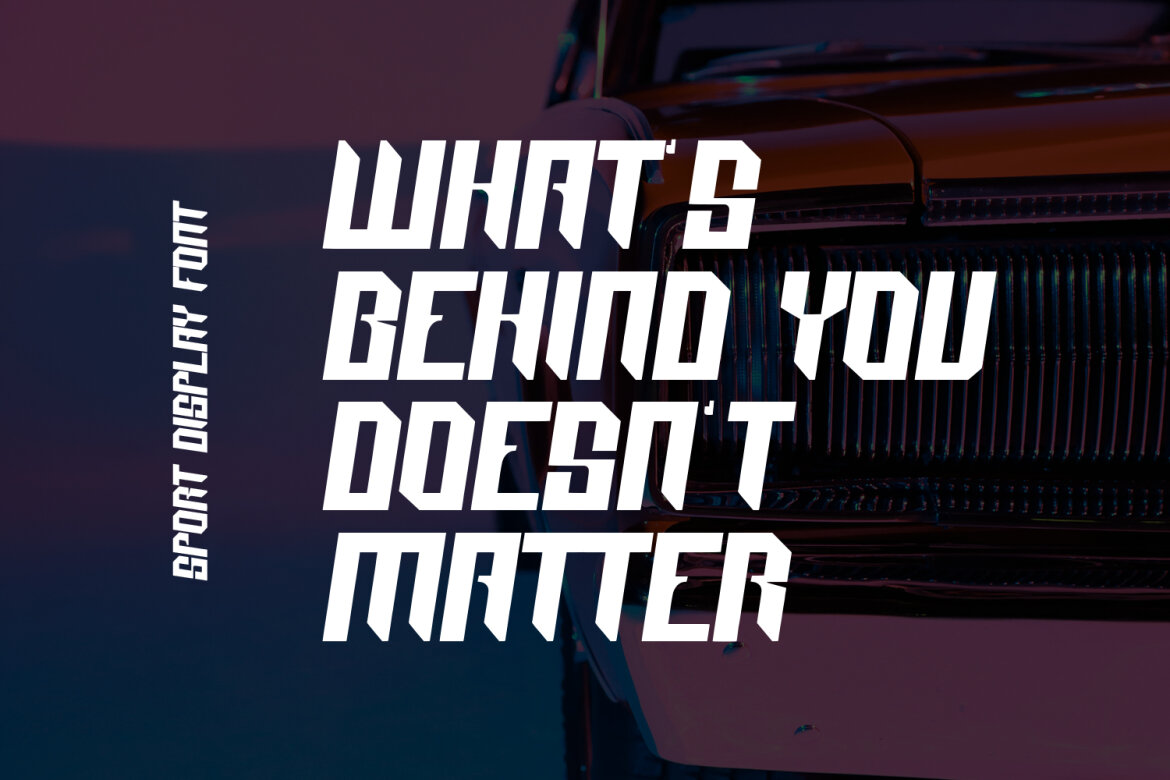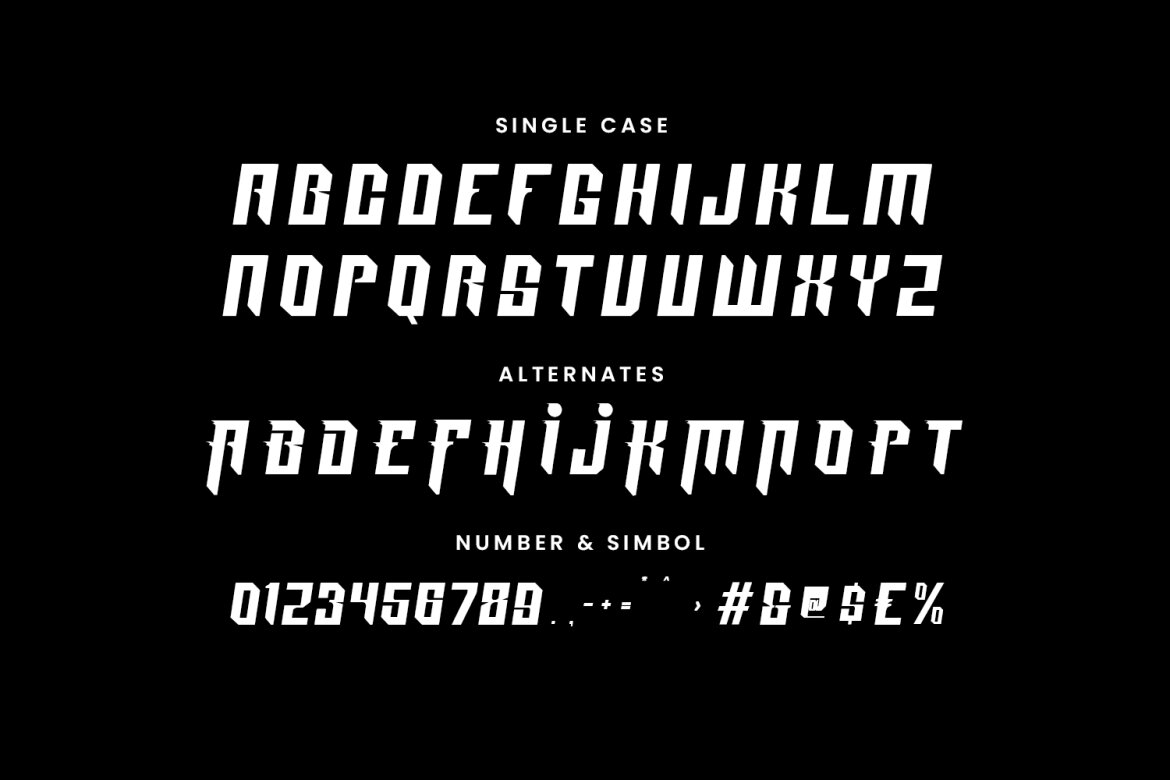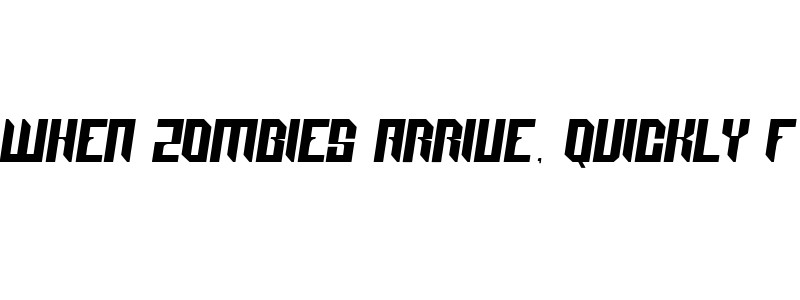
Race Timo Sport FREE Font
Race Timo Sport Display Font. Regular stroke, fun character with a bit of ligatures and alternates. To give you an extra creative work. Race Timo font support multilingual more than 100+ language. This font is good for logo design, Social media, Movie Titles, Books Titles, a short text even a long text letter and good for your secondary text font with script or serif. Make a stunning work with Race Timo font.